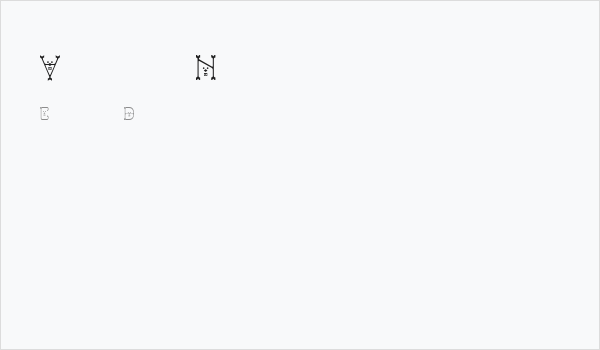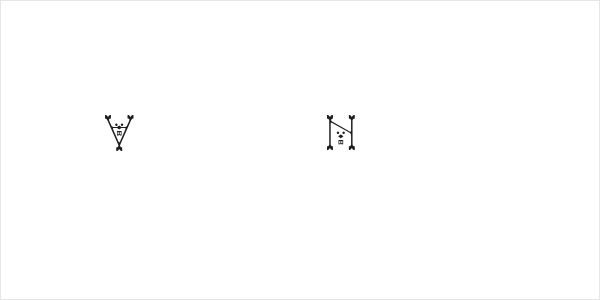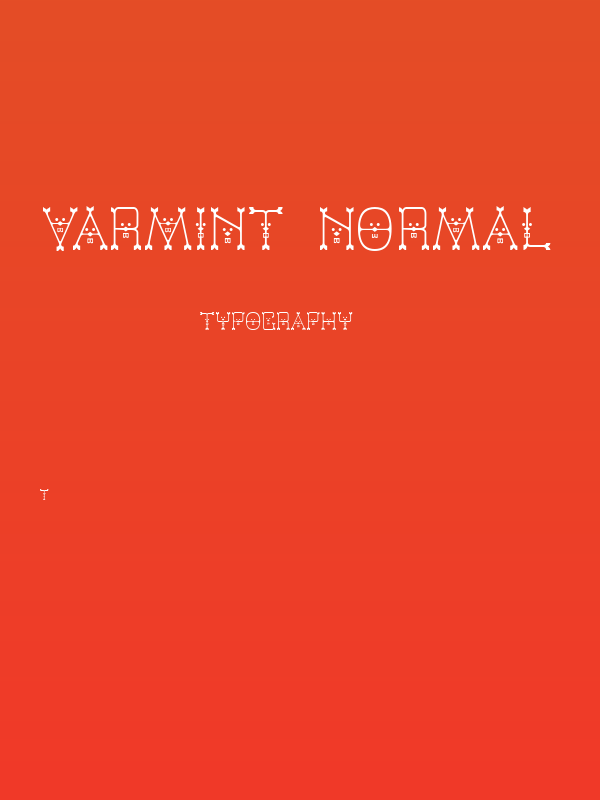
Varmint Normal Font
Varmint Normal Description
This font features a playful and whimsical design, incorporating elements that resemble bones and skulls within each character. The uppercase letters are distinct with decorative elements that give a sense of fun and creativity. The font's unique style makes it stand out, with each letter having a consistent theme that ties them together. The characters are well-spaced, ensuring readability while maintaining their decorative appeal. This font is perfect for projects that require a touch of humor or a spooky theme, making it ideal for Halloween or children's events.